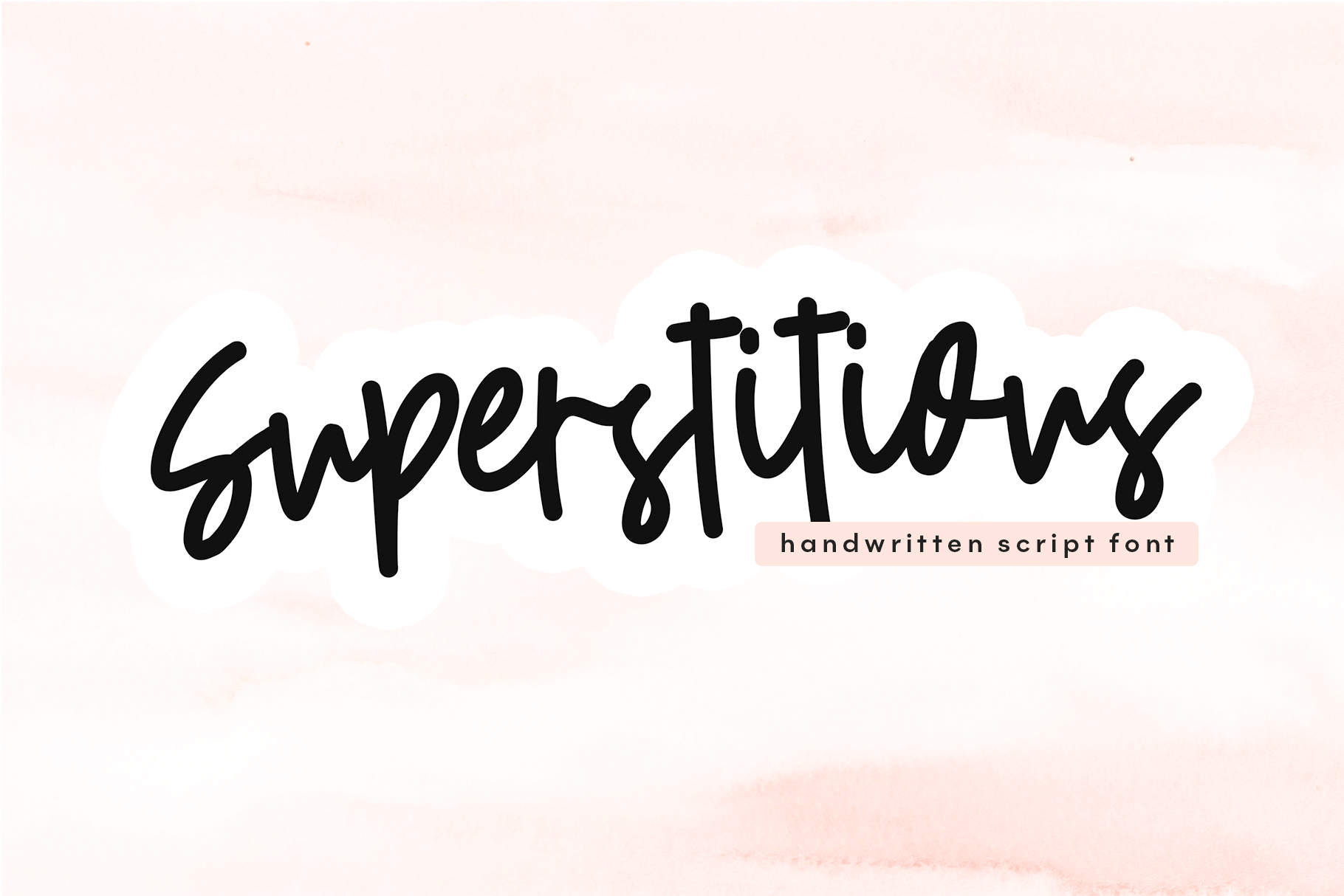
Superstitious - Bold Script Font
Superstitious is a bold handwritten script font
This font is perfect for quotes, headings, blogs, logos, invitations and more!